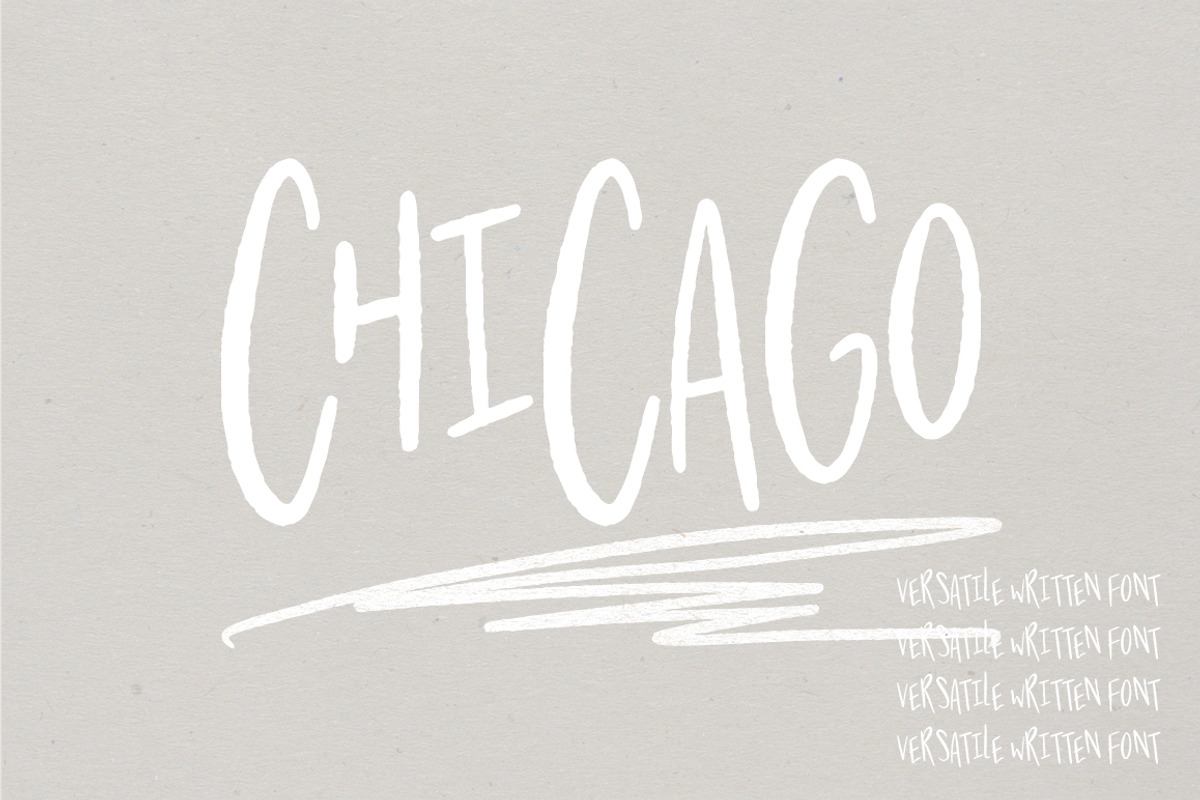
Chicago – A Hand Written Typeface Free Download is a bold and expressive handwritten font that captures the energy of free-flowing marker or brush strokes. With its urban, casual style and confident character, this font is perfect for posters, branding, streetwear, music covers, event flyers, and creative social media content.
Designed to feel raw yet readable, Chicago – A Hand Written Typeface Free Download brings a personal, artistic edge to any project. It’s great for bold headlines, standout logos, or any design that wants to feel authentic, handcrafted, and full of attitude.